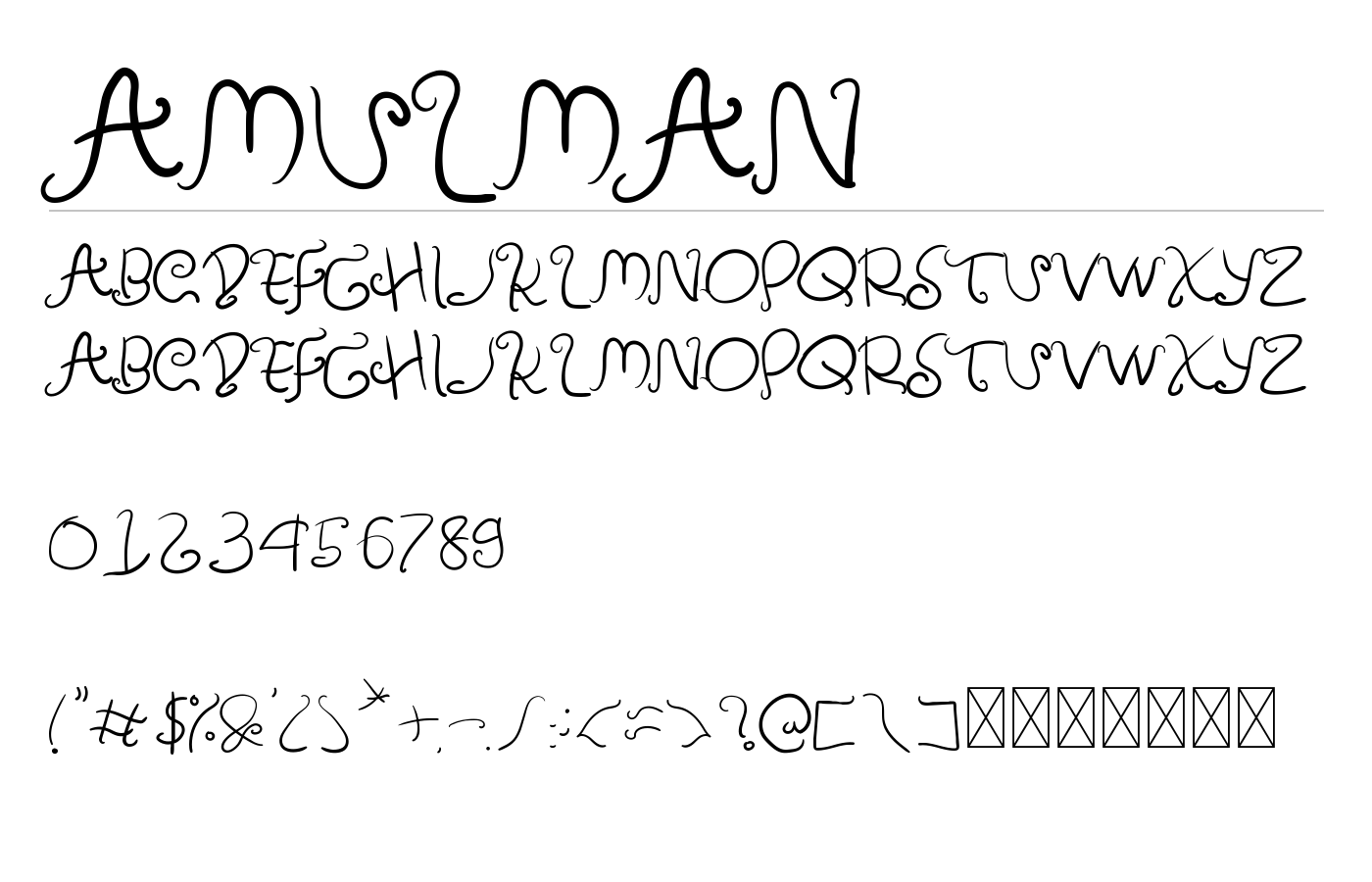
Amulman is a whimsical, handwritten-style font featuring thin, delicate strokes with playful curls and loops that give it a light, airy feel. Its unique, decorative letterforms make it ideal for creative and artistic projects where a charming, informal vibe is desired, such as invitations, logos, or editorial accents. This font works best for display use, adding a touch of personality and elegance without sacrificing readability.
Amulman Font
About Amulman Font